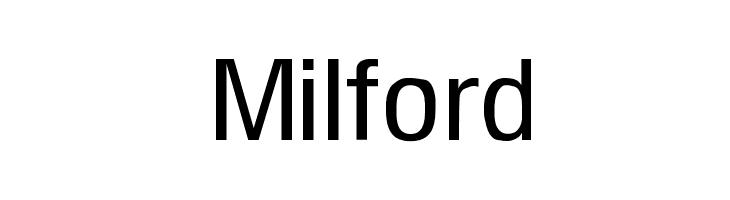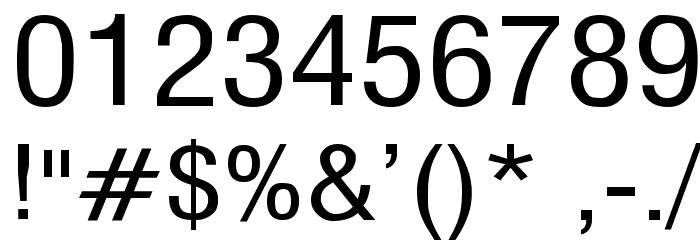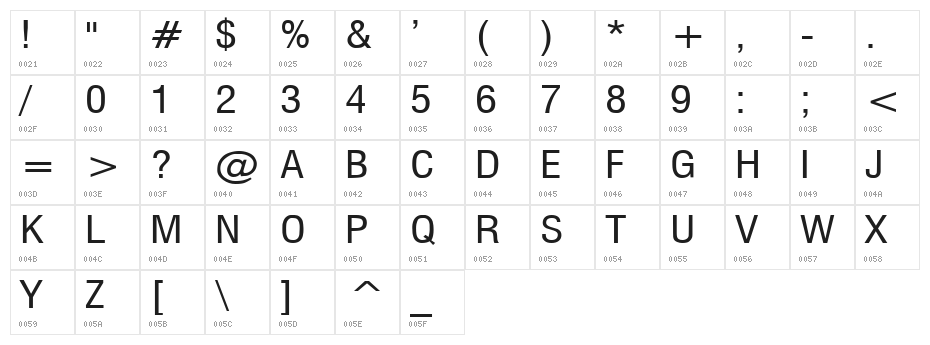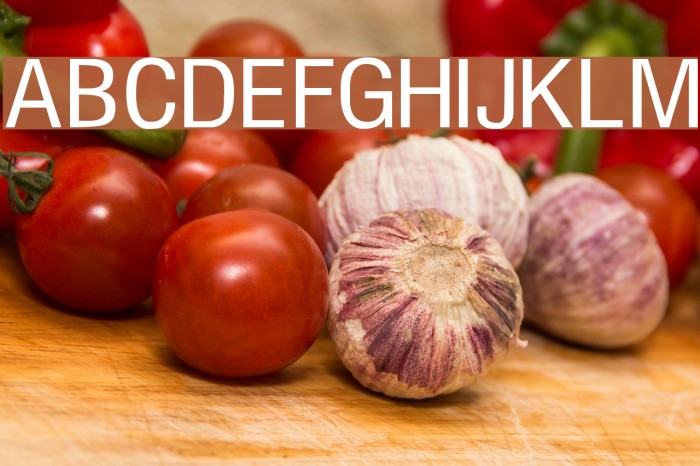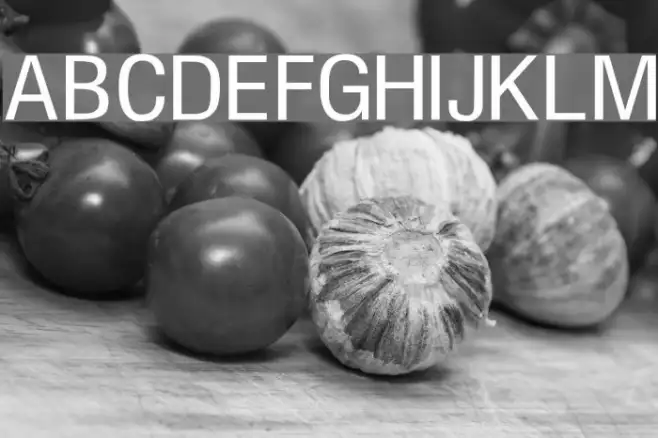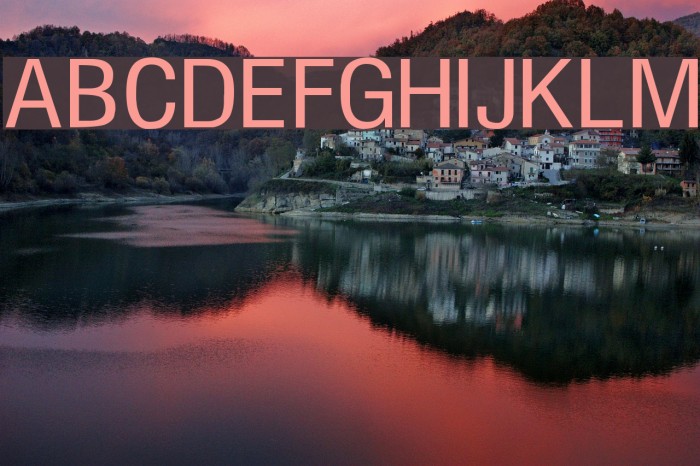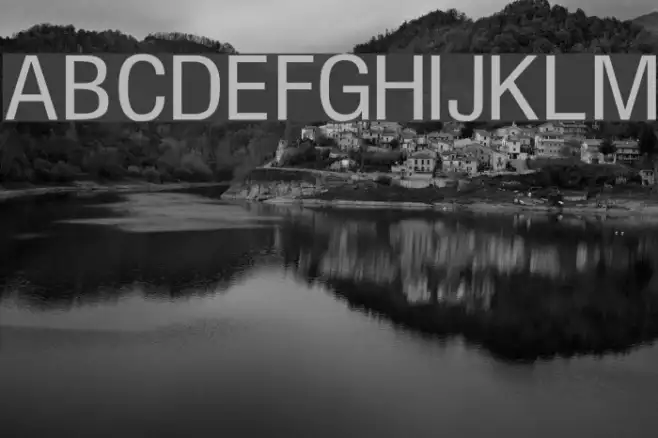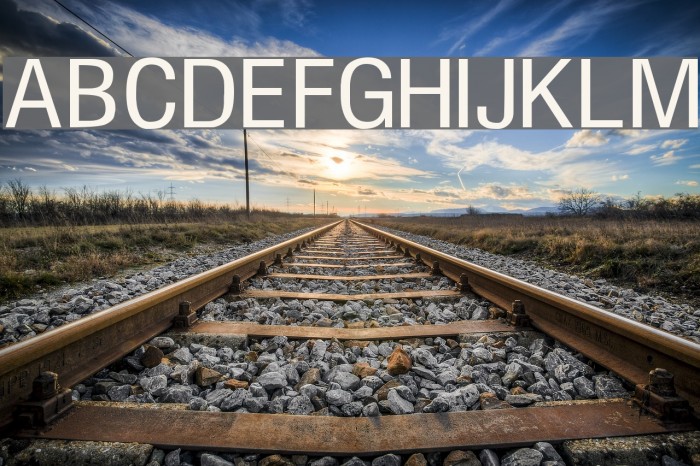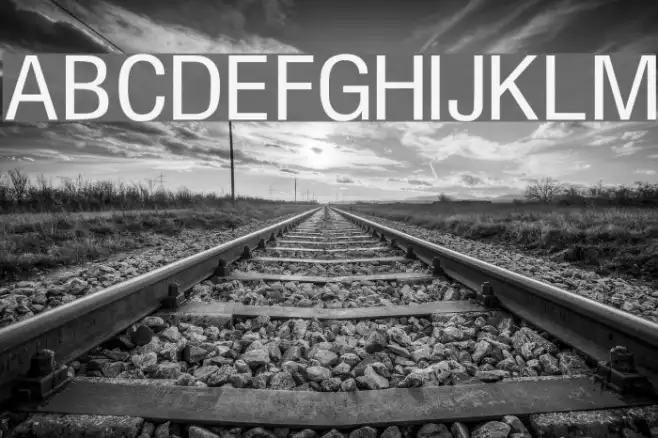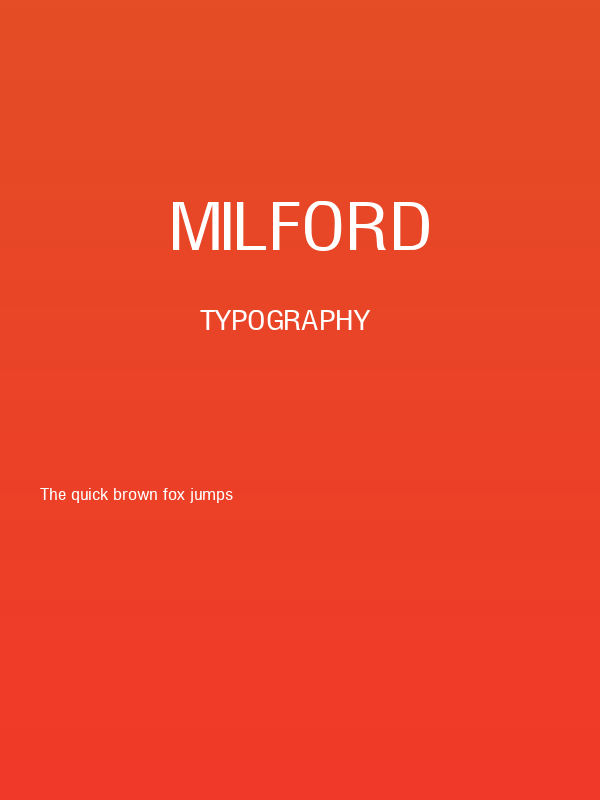
Milford Font
Milford Description
This font features a clean and modern sans-serif design, characterized by its uniform stroke width and minimalistic appearance. The uppercase letters are bold and assertive, while the lowercase letters maintain a consistent height, offering a balanced and harmonious look. The numerals are clear and easy to read, making them suitable for various applications. Special characters are well-defined, enhancing the font's versatility. The overall style is sleek and professional, making it ideal for contemporary design projects.
| Proposed Projects | Ideal for branding, web design, advertising, and editorial layouts. |